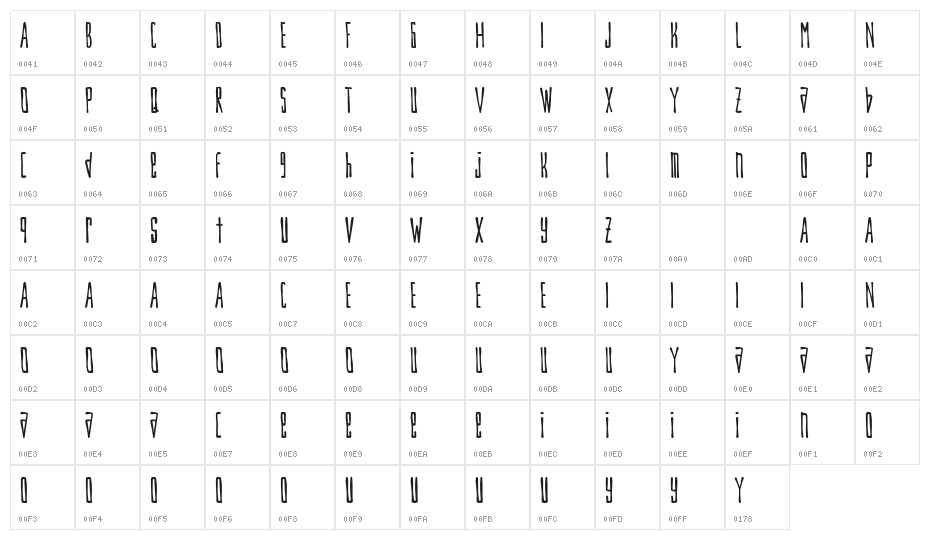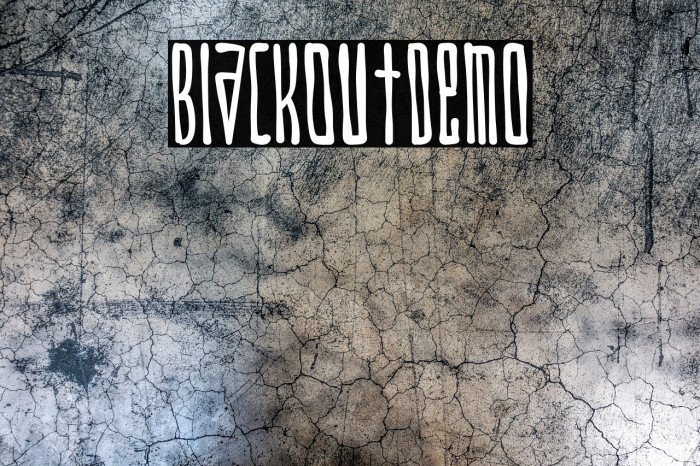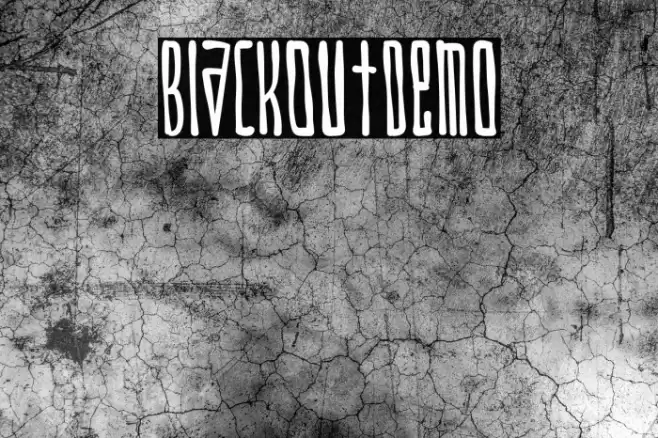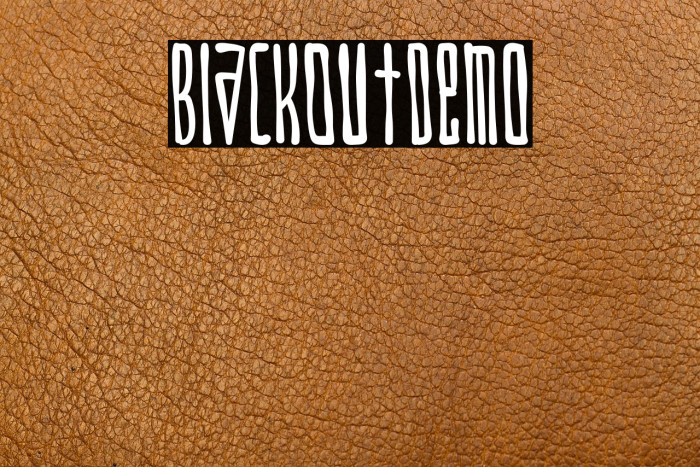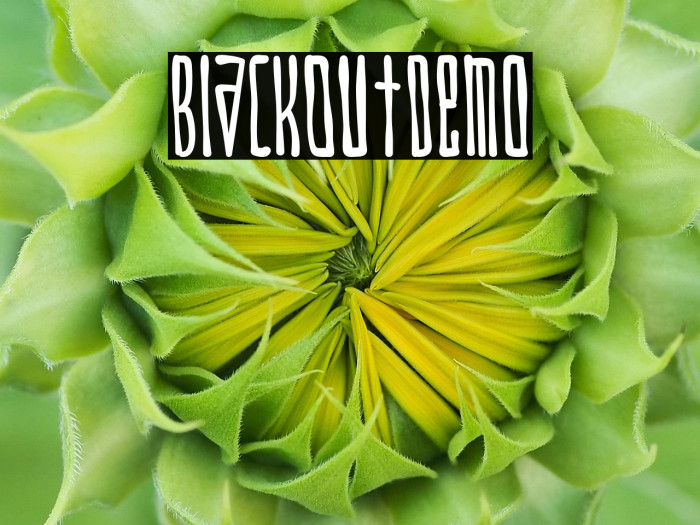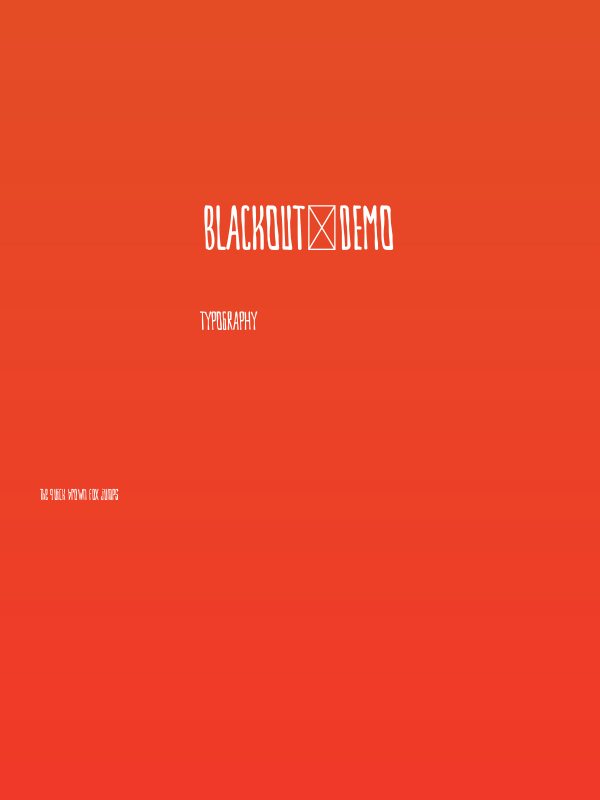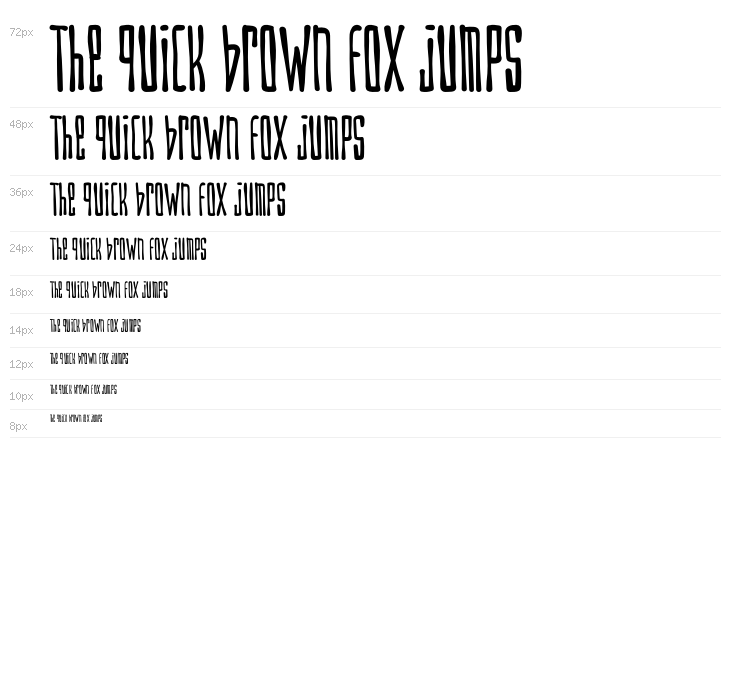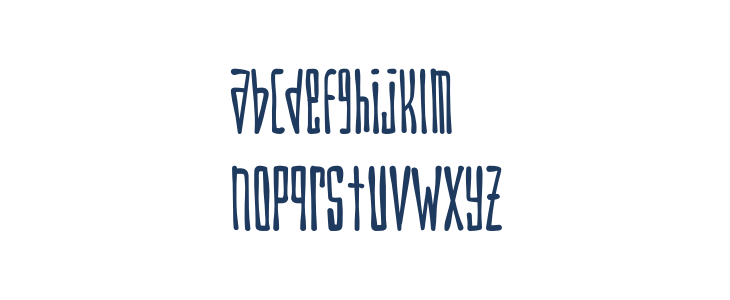
BlackOut-Demo Font
BlackOut-Demo Description
This font features a unique and artistic style with elongated and slightly irregular letterforms, giving it a hand-drawn appearance. The characters are tall and narrow, with a playful yet sophisticated look. The uppercase and lowercase letters maintain a consistent height, creating a cohesive visual flow. The strokes are uneven, adding to the font's charm and making it stand out in creative projects. The absence of traditional serifs and the organic feel make it suitable for modern and artistic designs.
| Overall Style | Artistic, Modern |
| Proposed Projects | Ideal for posters, album covers, artistic branding, and creative invitations. |